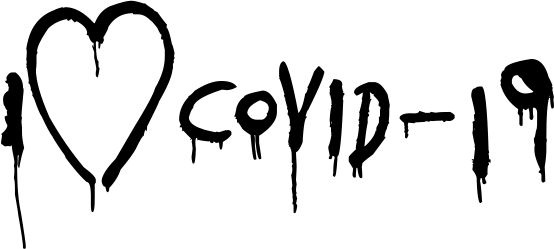
zai I love Covid-19 Font
To make a project in thriller style, you can use a horror font. Here is zai I love Covid-19 with thin and bloody letters. It’s usable for flyers, movie posters, game covers, and so on. Bear in mind that it doesn’t support lowercase letters. If you need more dripping fonts, head over to RB right now.